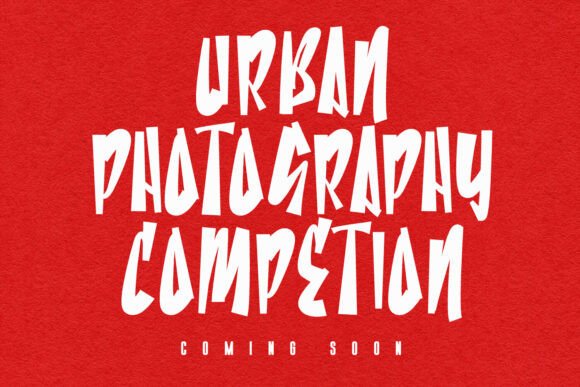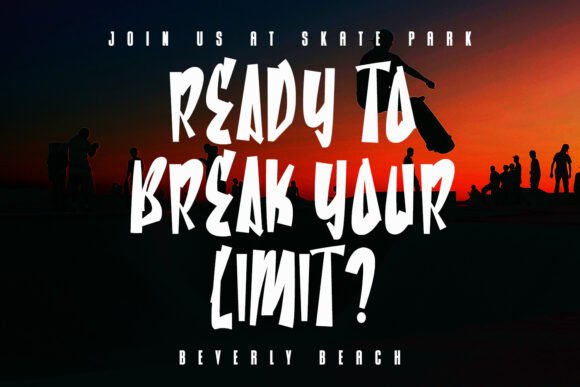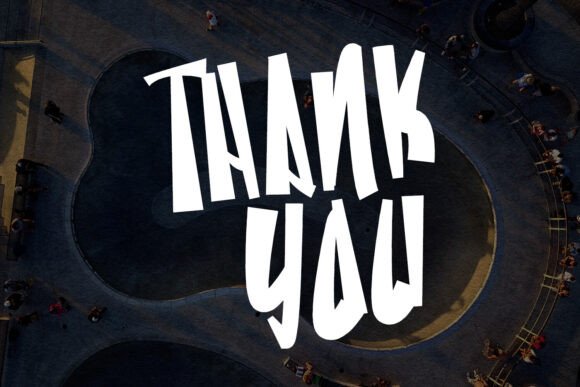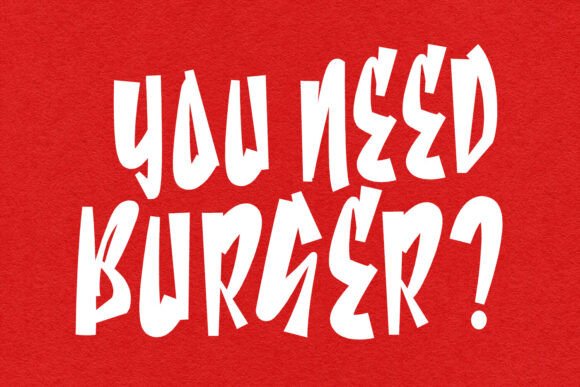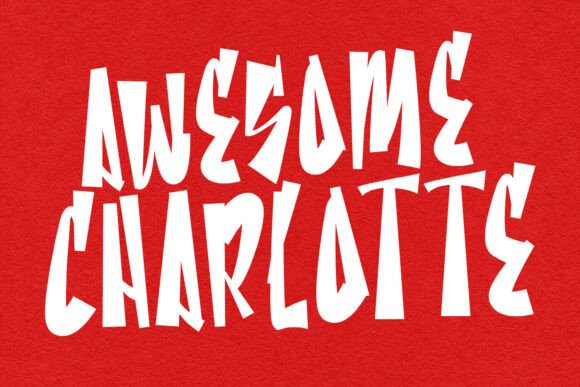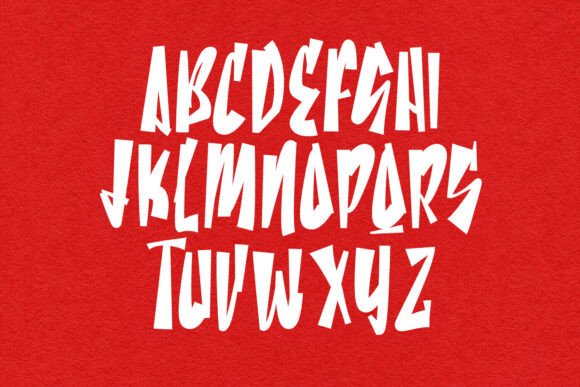
Introduction to Mishab Oketer Font
Mishab Oketer is a simply casual handwritten graffiti font.
With medium low contrast stroke, fun character with a bit of ligatures and alternates To give you an extra creative work.